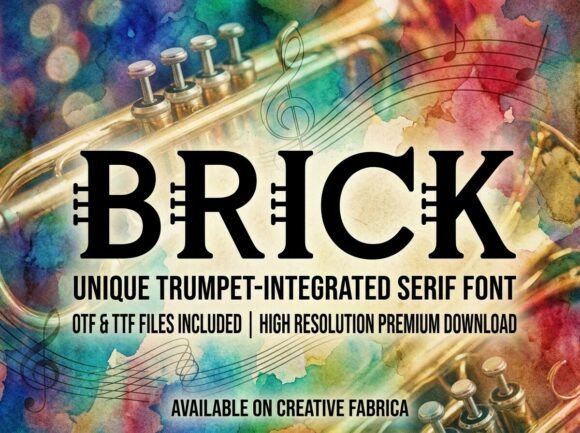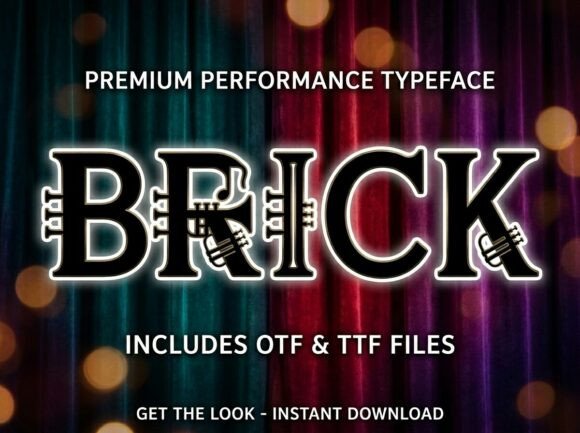
Brick Font: Strike a High Note with this Rhythmic Display Serif
Are you looking for a font that captures the essence of music and performance? Look no further than Brick, a bold and traditional display serif font that embodies the spirit of jazz and theatricality. With its unique blend of serif letterforms and hand-drawn instrument motifs, Brick is the perfect choice for designers and crafters seeking to make a statement.
The Inspiration Behind Brick
Brick font is inspired by the world of music and performance. Its creator aimed to capture the “musical-and-magical” soul of jazz and live theater, and the result is a font that exudes energy, creativity, and showmanship. The font’s design combines classic serif letterforms with hand-drawn motifs of trumpets and other brass instruments, complete with rhythmic valves and shining bells. This innovative approach gives Brick a distinctive personality that sets it apart from more traditional fonts.
Design Features of Brick Font
Brick font boasts a range of design features that make it perfect for high-impact applications. Some of its key characteristics include:
- Bold and traditional serif letterforms: Brick’s letterforms are sturdy and confident, with a classic serif design that commands attention.
- Hand-drawn instrument motifs: The font features intricate, hand-drawn designs of trumpets and other brass instruments, adding a touch of whimsy and creativity.
- Rhythmic valves and shining bells: The instrument motifs are complete with valves and bells, giving each character a sense of movement and energy.
- Heavy performance weight: Brick font has a substantial, bold appearance that’s perfect for headlines and titles.
Use Cases for Brick Font
Brick font is ideal for a range of design applications where a bold, attention-grabbing appearance is desired. Some potential use cases include:
- Independent jazz club branding: Brick’s jazz-inspired design makes it a natural fit for jazz clubs, bars, and live music venues.
- Theatrical performance posters: The font’s bold, show-stopping personality is perfect for promoting plays, musicals, and other live performances.
- Musical instrument shop logos: Brick’s instrument motifs make it a great choice for music stores, instrument manufacturers, and music-related businesses.
- Social media headers: The font’s heavy performance weight and bold design make it ideal for social media headers, where a strong visual impact is essential.
Why Choose Brick Font?
With so many fonts available, why choose Brick? Here are just a few reasons why Brick stands out:
- Unique design: Brick’s blend of serif letterforms and instrument motifs is unlike any other font on the market.
- High-impact appearance: The font’s bold, heavy design ensures that your message will be seen and remembered.
- Versatility: Brick can be used for a wide range of design applications, from posters and logos to social media headers and more.
Brick font is a bold, attention-grabbing display serif that captures the essence of music and performance. With its unique design, heavy performance weight, and show-stopping personality, Brick is the perfect choice for designers and crafters seeking to make a statement. Whether you’re promoting a jazz club, theatrical performance, or musical instrument shop, Brick font is sure to strike a high note.